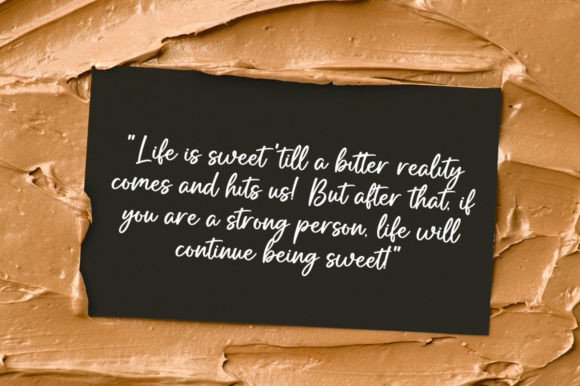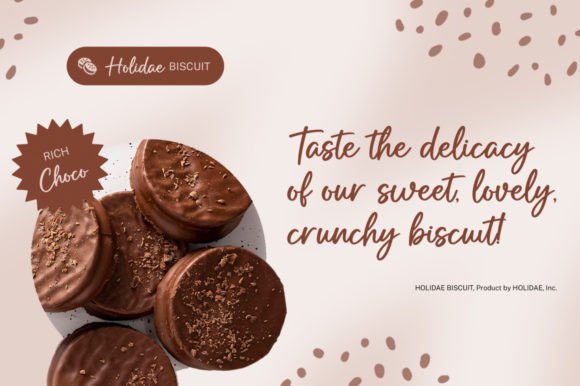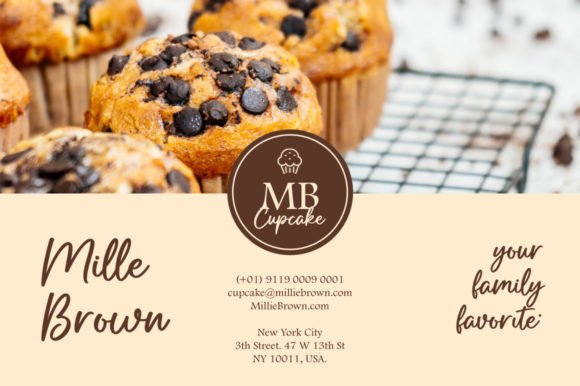
About Butterscotch Font
Butterscotch is a delicate, elegant, and flowing handwritten font. It has beautiful and well-balanced characters and as a result, it matches a wide pool of designs.